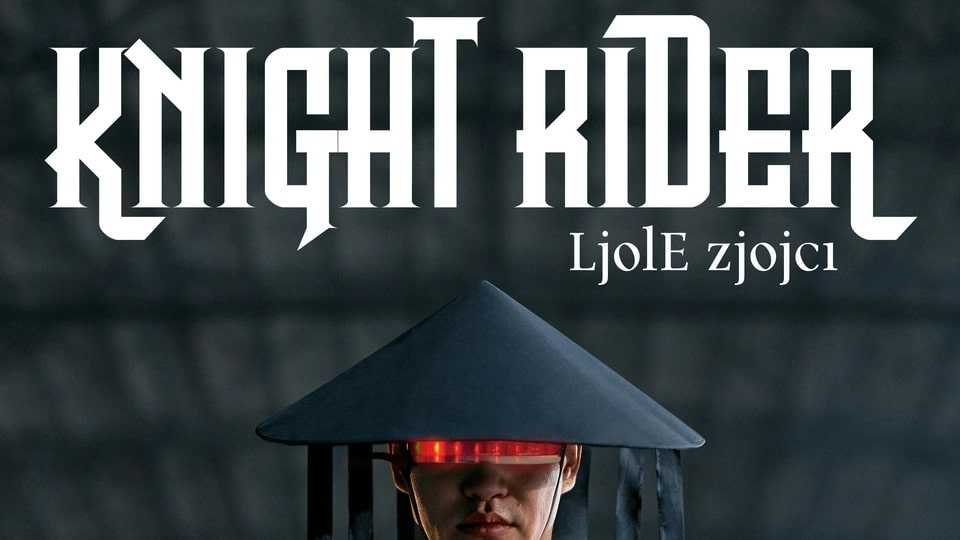
Download Durendal & Oliphant font, a decorative display typeface that blends medieval charm with a touch of late 19th-century whimsy.
Designer: Tup Wanders